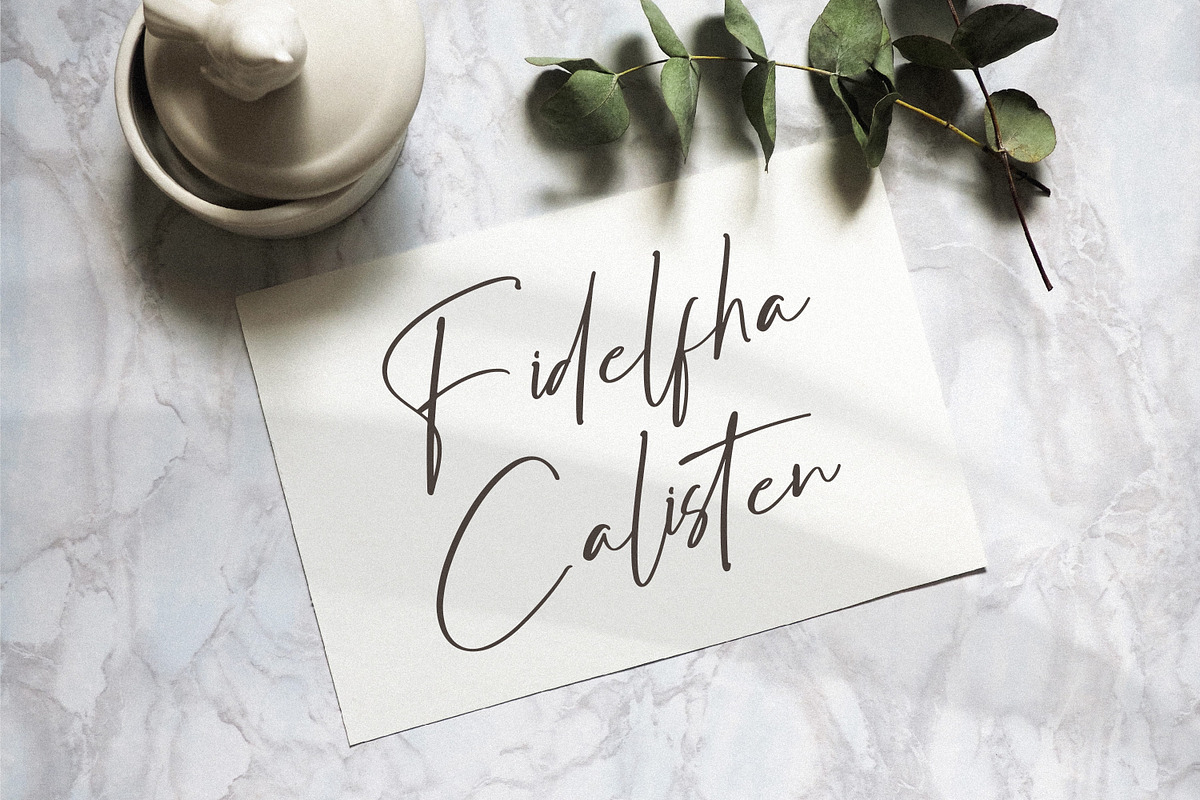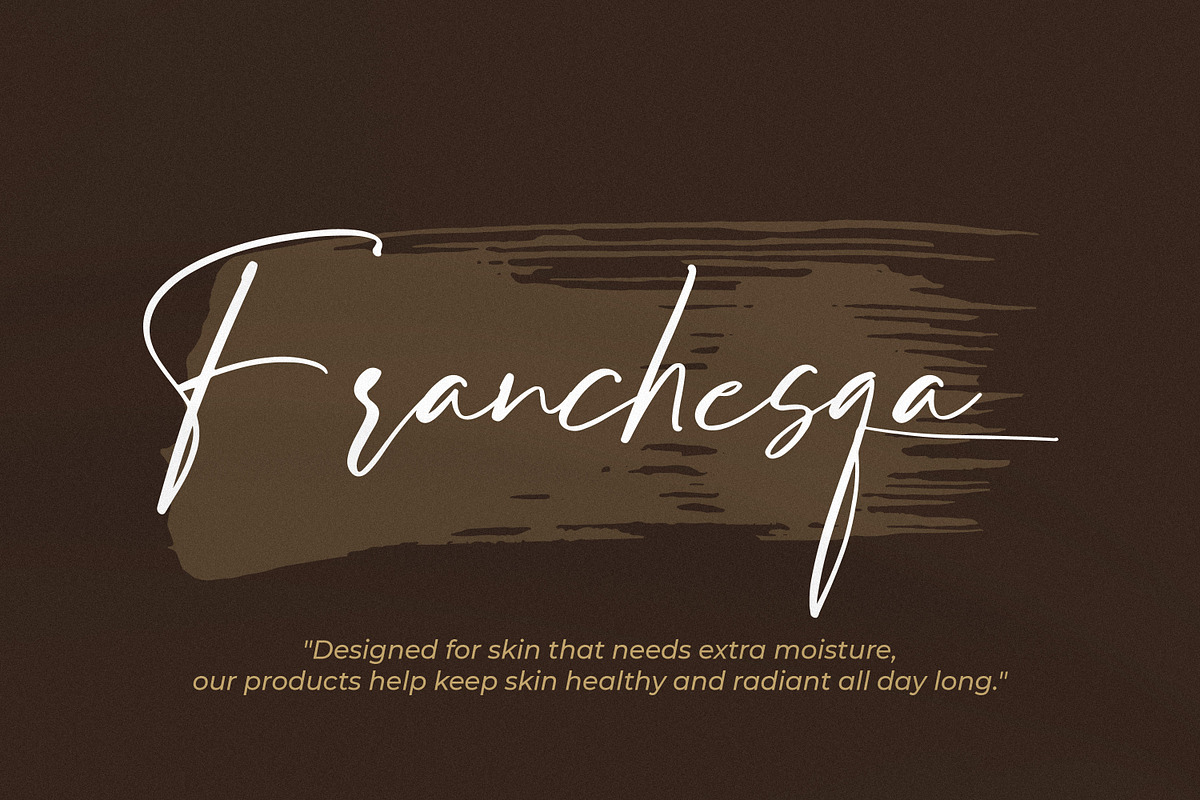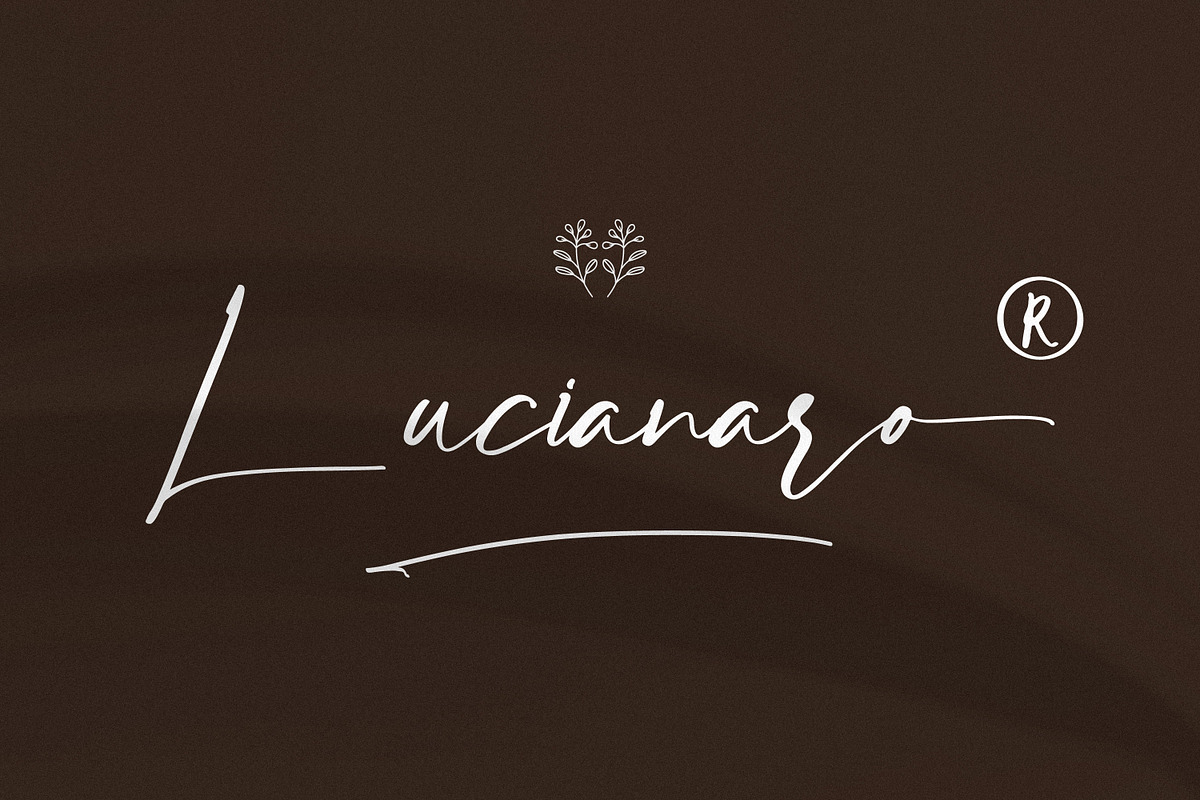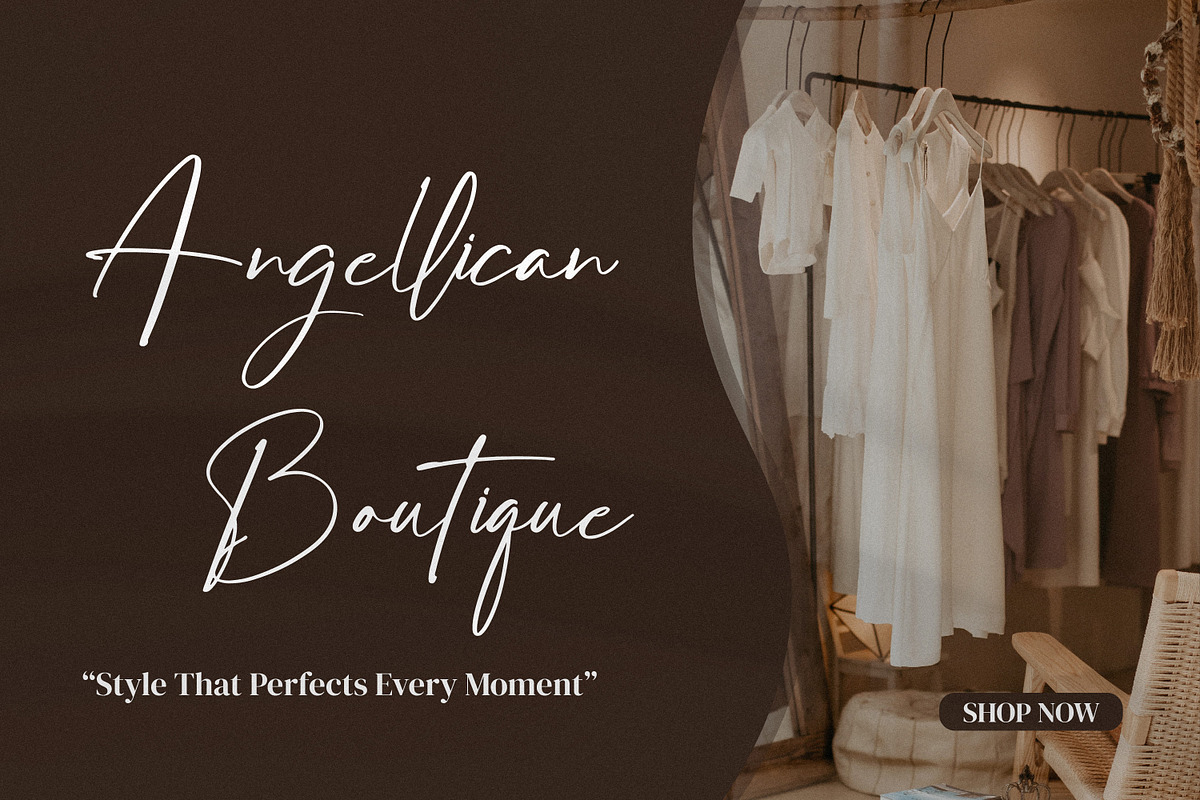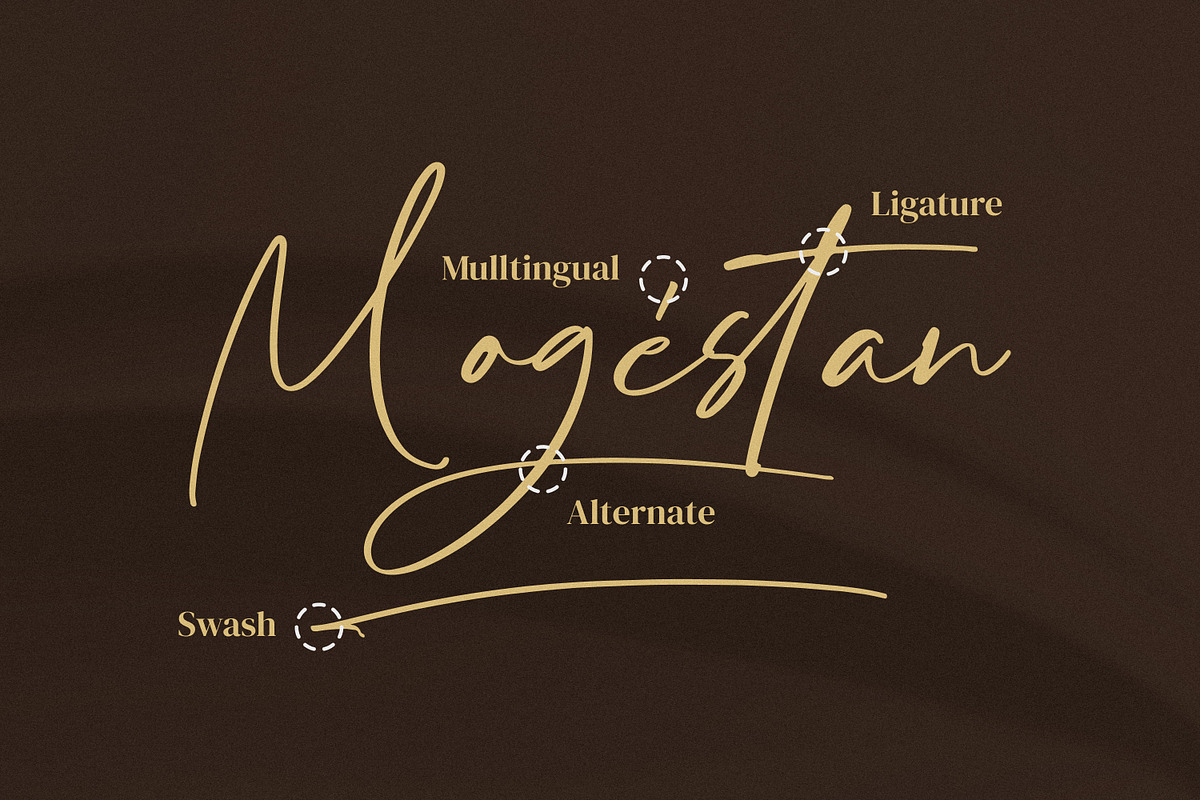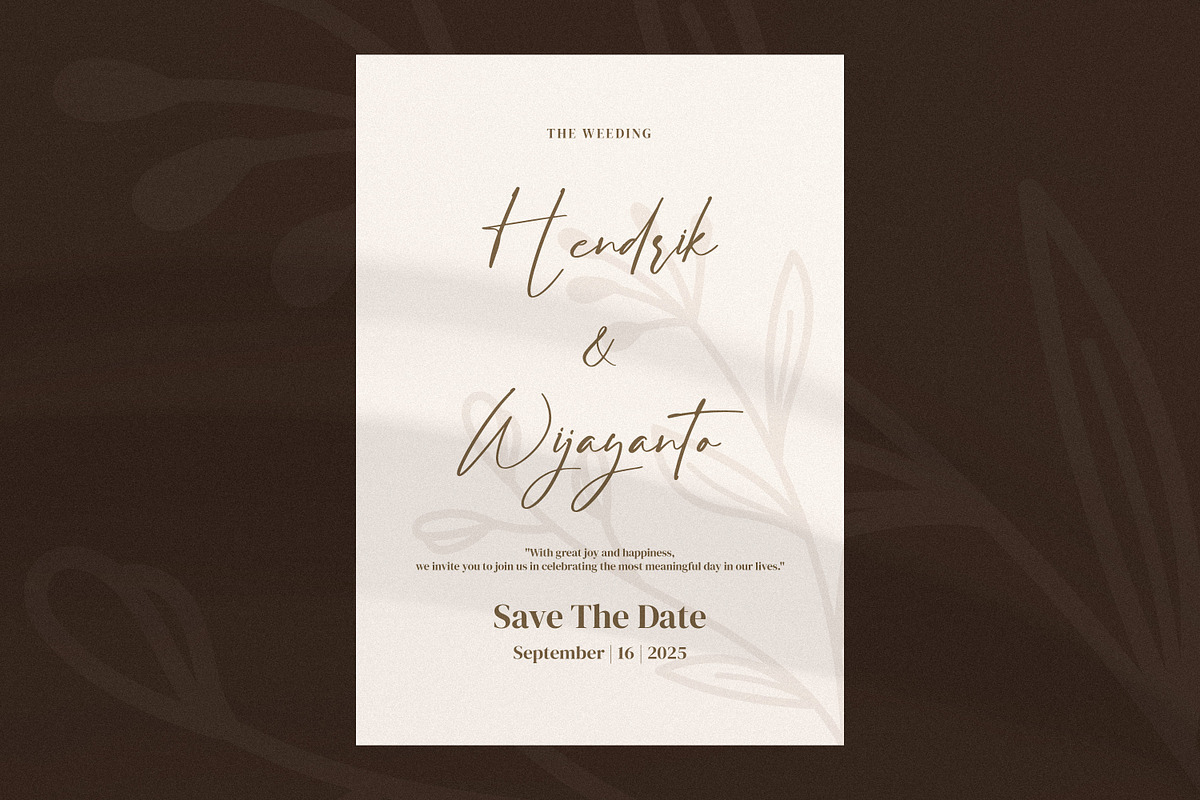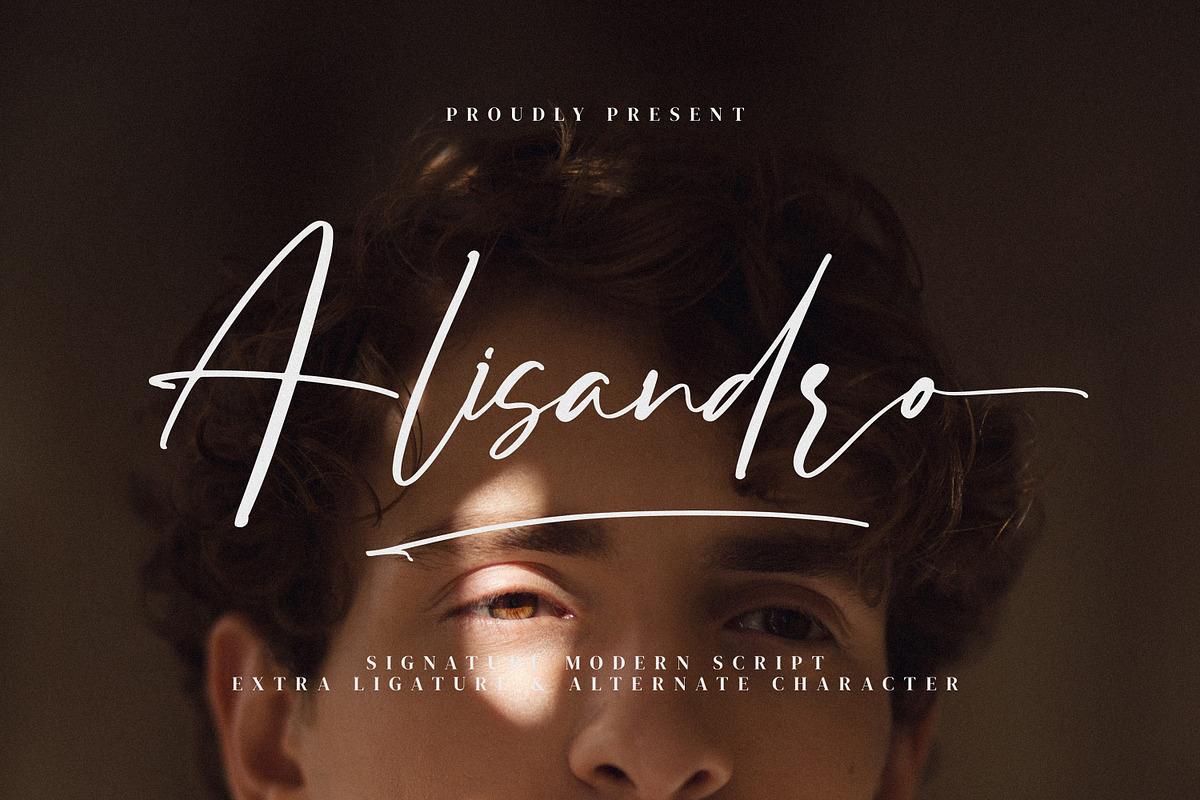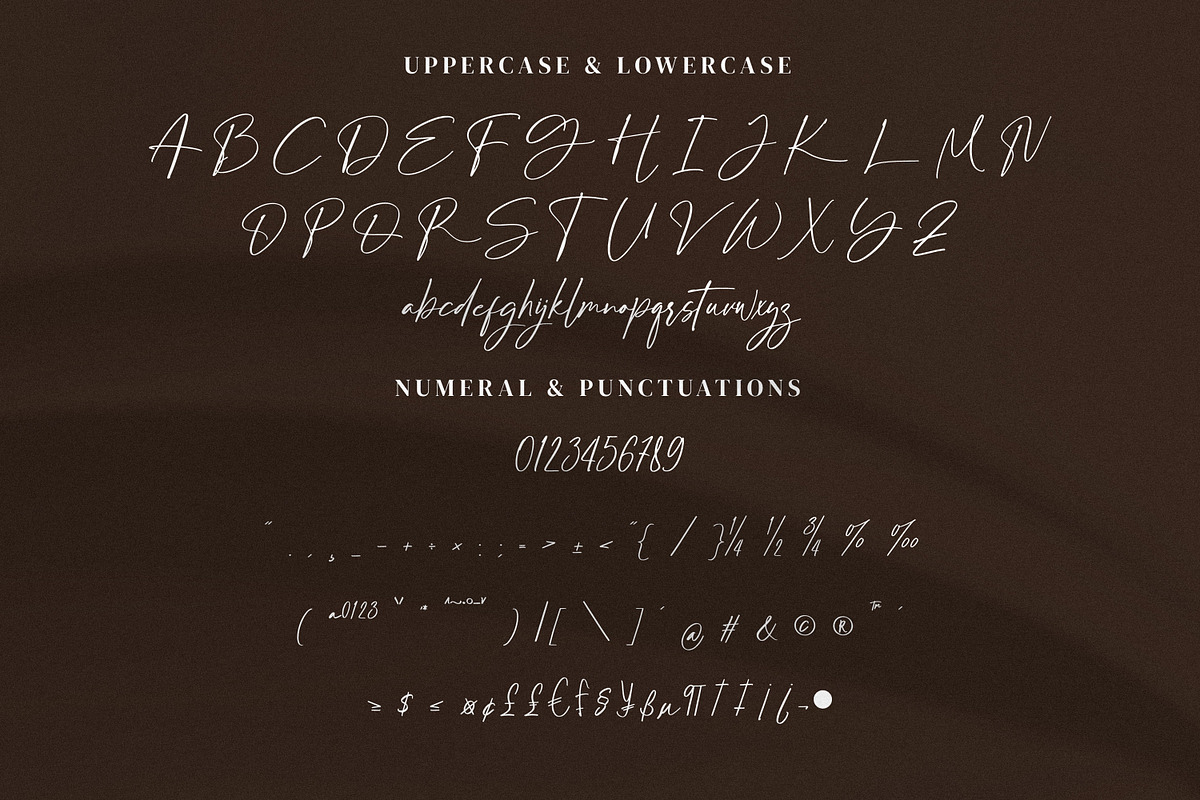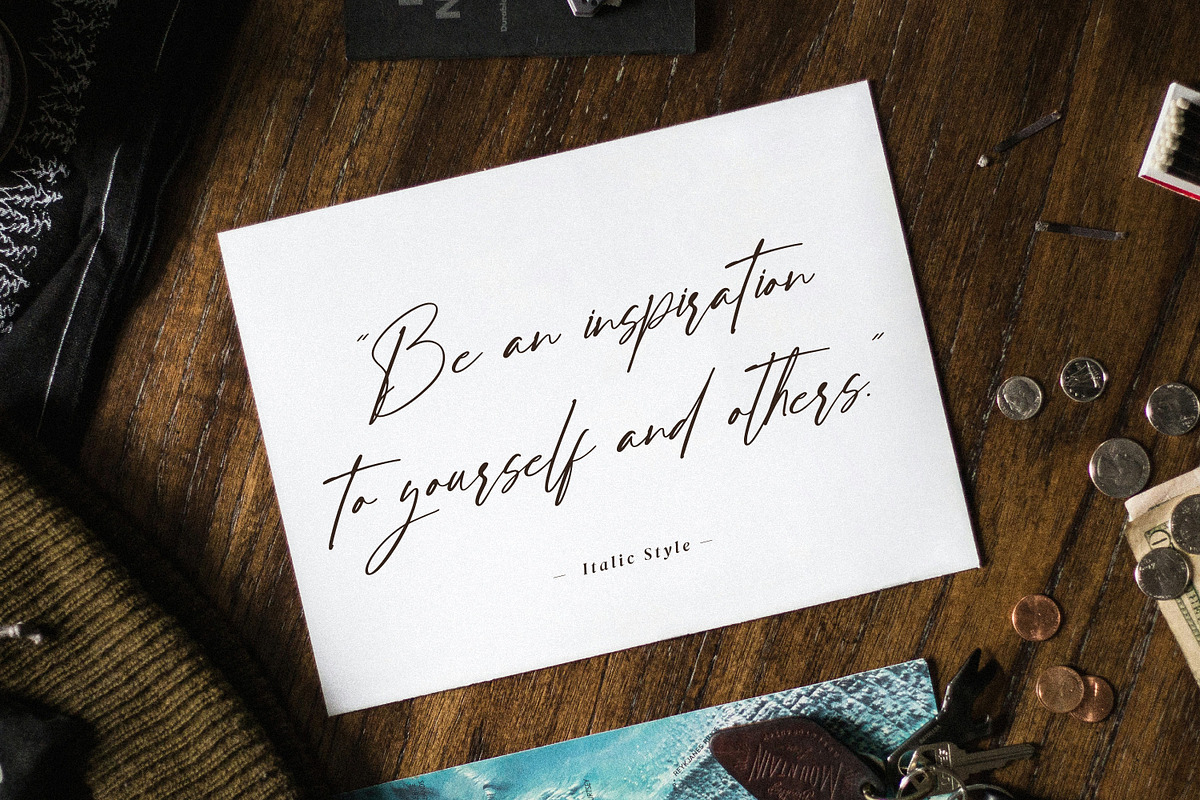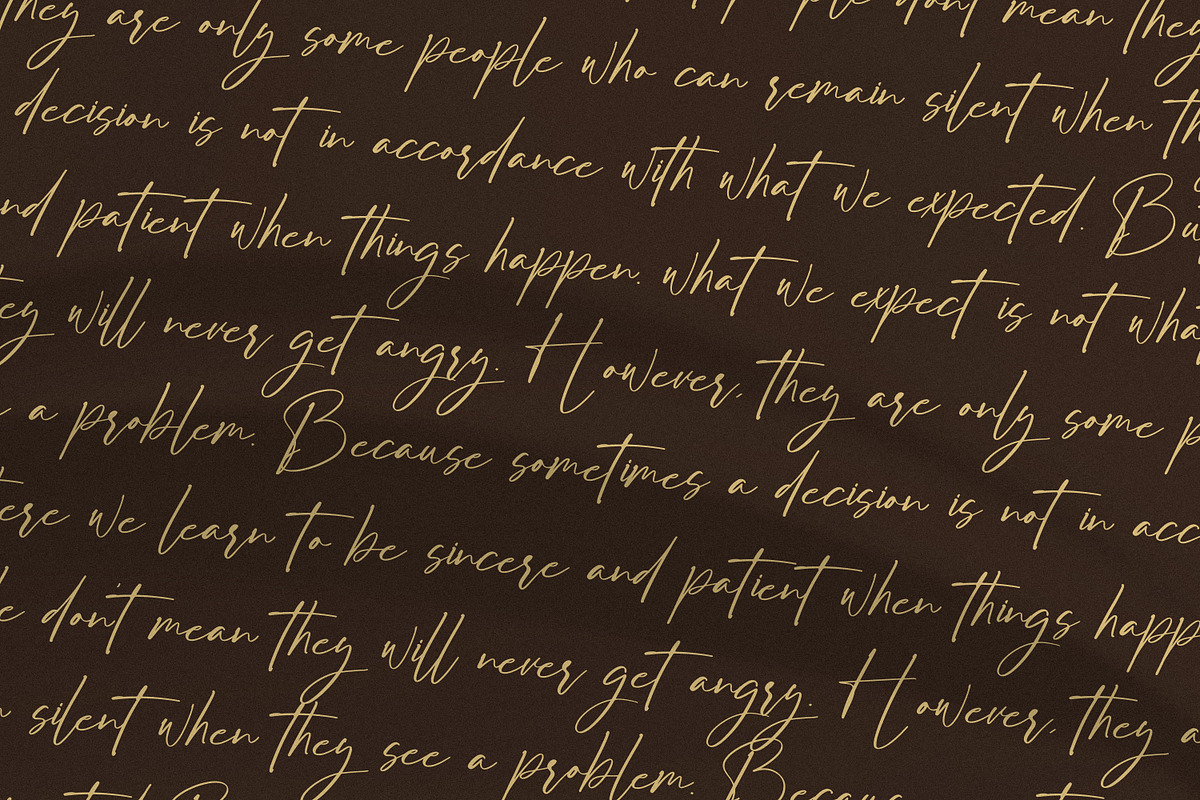
Alisandro
Alisandro - Signature Modern Script, from Goresan Studio, suitable for any projects such as: logos, branding projects, homeware designs, product packaging, mugs, quotes, posters, shopping bags, t-shirts, book covers, name card, invitation cards, greeting cards, label, photography, watermark, special events, and all your other lovely projects that need a beautiful script taste.
- Alternate, Ligature and Swash
- Fonts include multilingual support.